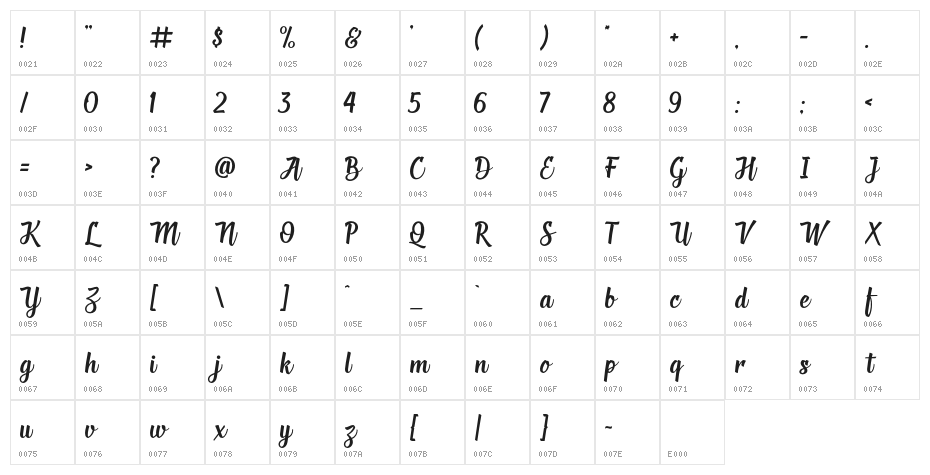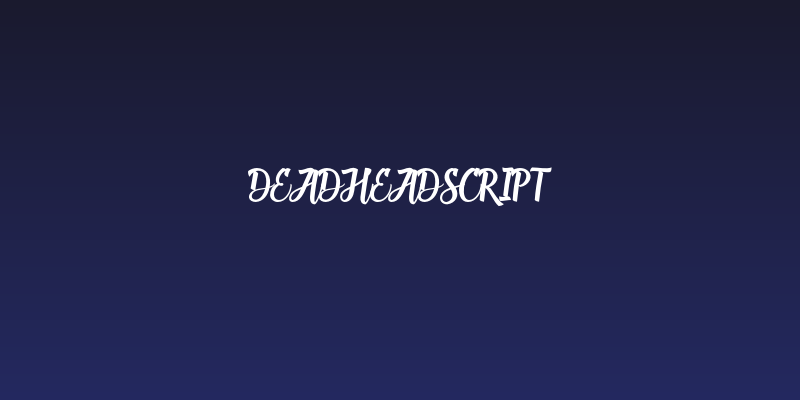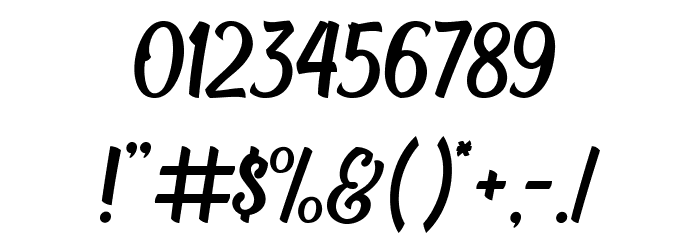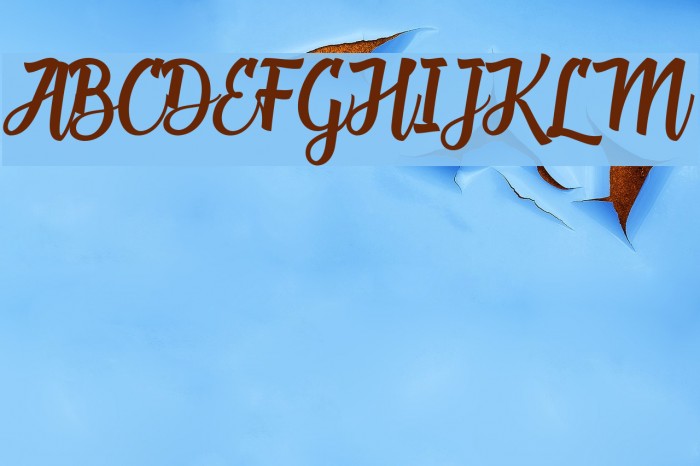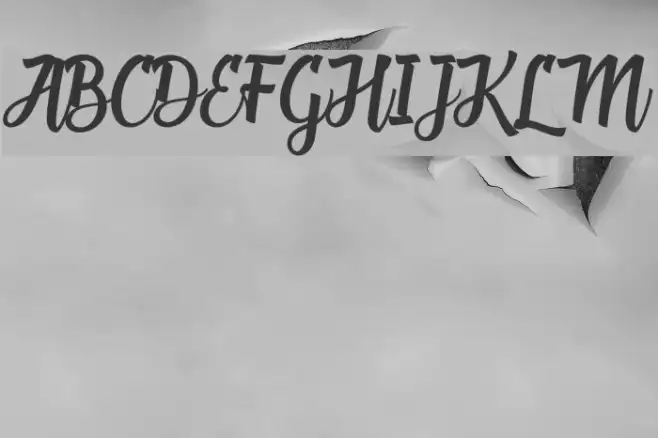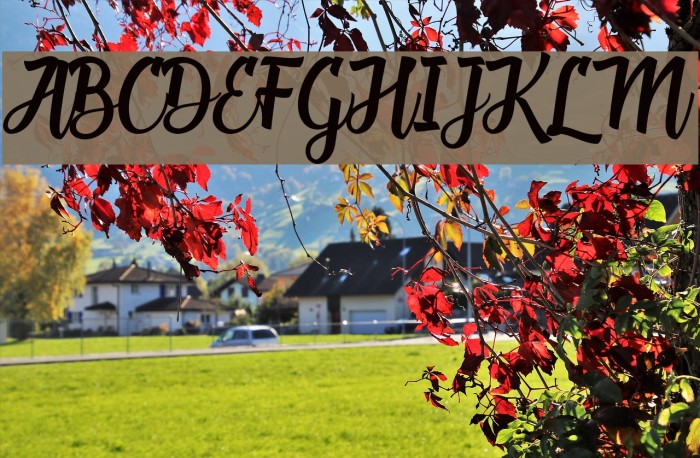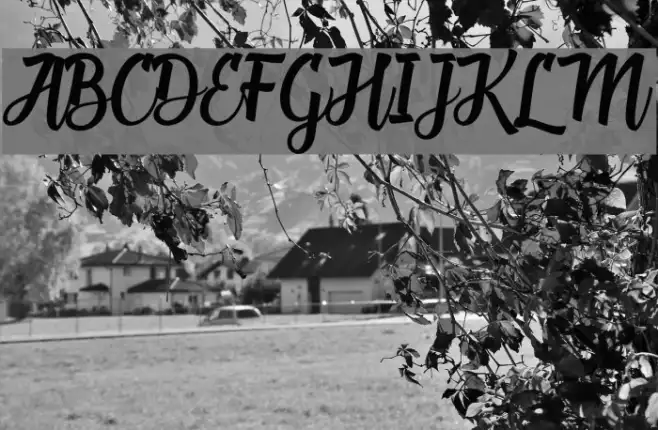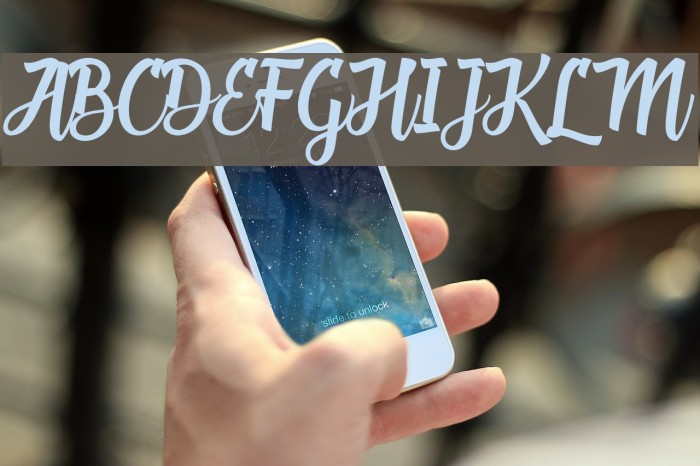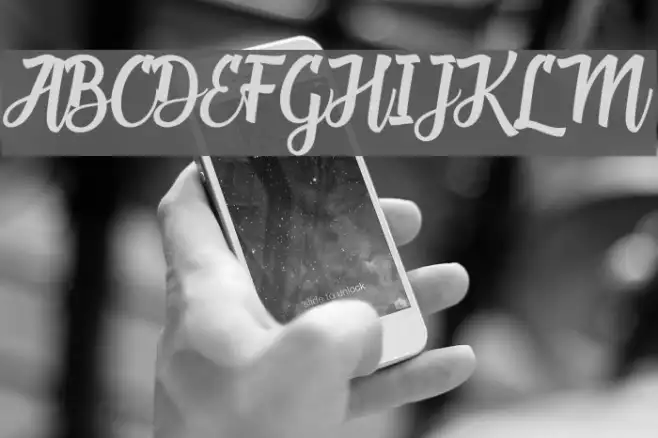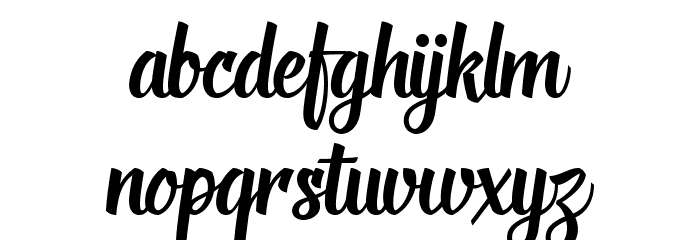
DeadheadScript Font
DeadheadScript Description
This font exhibits a bold and flowing script style, characterized by its elegant and dynamic letterforms. The uppercase letters are particularly striking, with sweeping curves and flourishes that give a sense of movement and grace. The lowercase letters maintain a consistent flow, with smooth connections between characters, enhancing readability while retaining a decorative flair. The numerals are well-integrated into the script style, ensuring a cohesive look across all characters. Special characters are designed with the same attention to detail, making them suitable for a variety of uses. The overall impression is one of sophistication and artistic expression, ideal for projects that require a touch of elegance and personality.